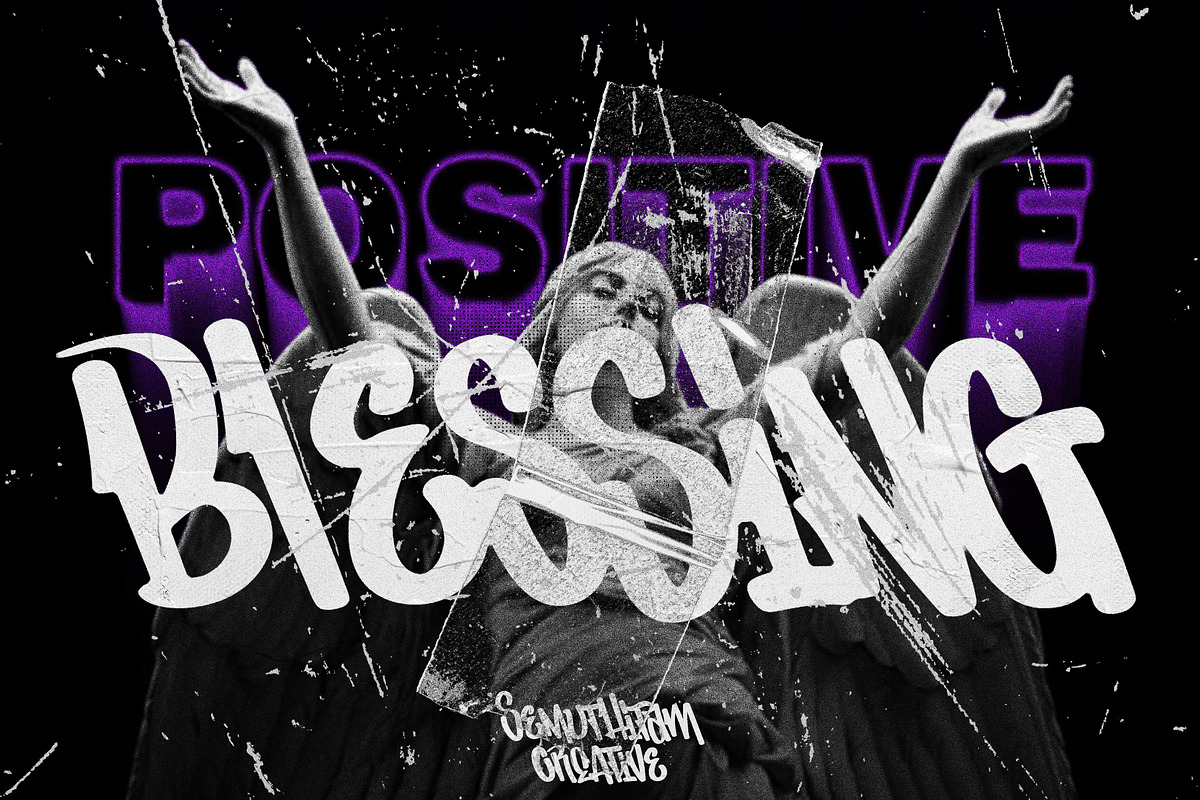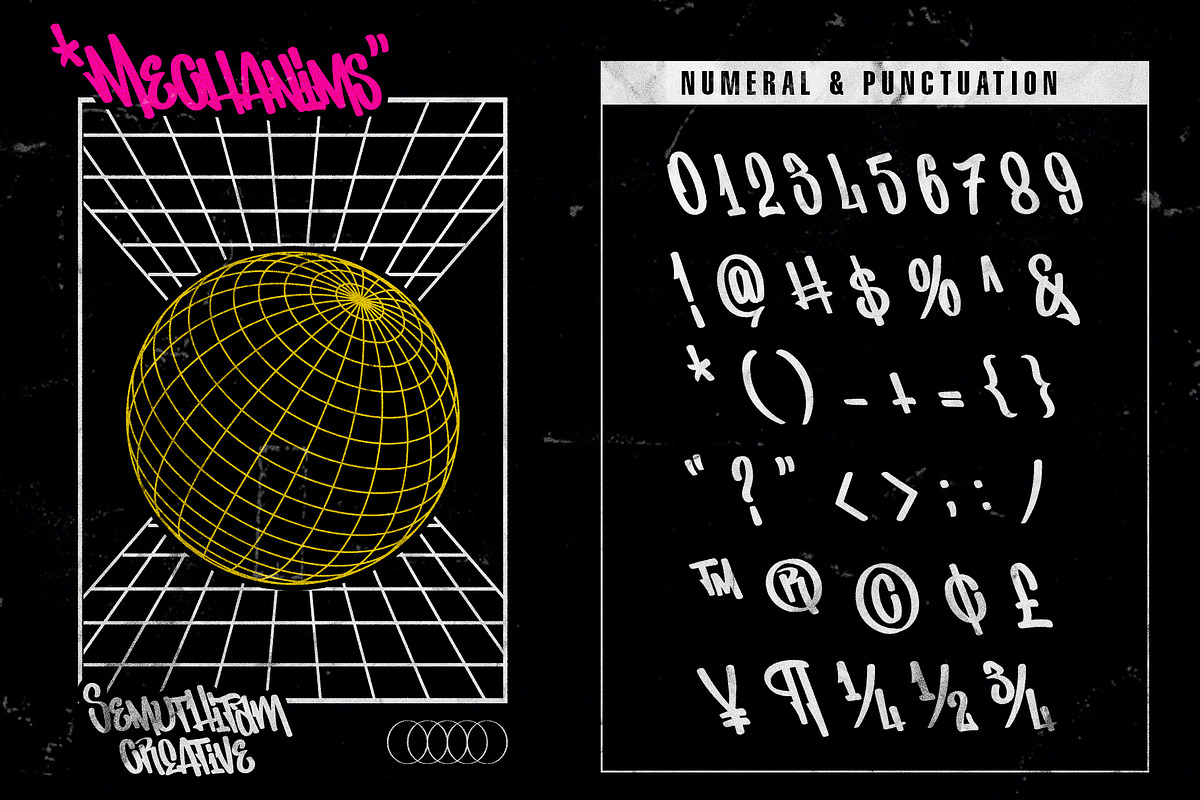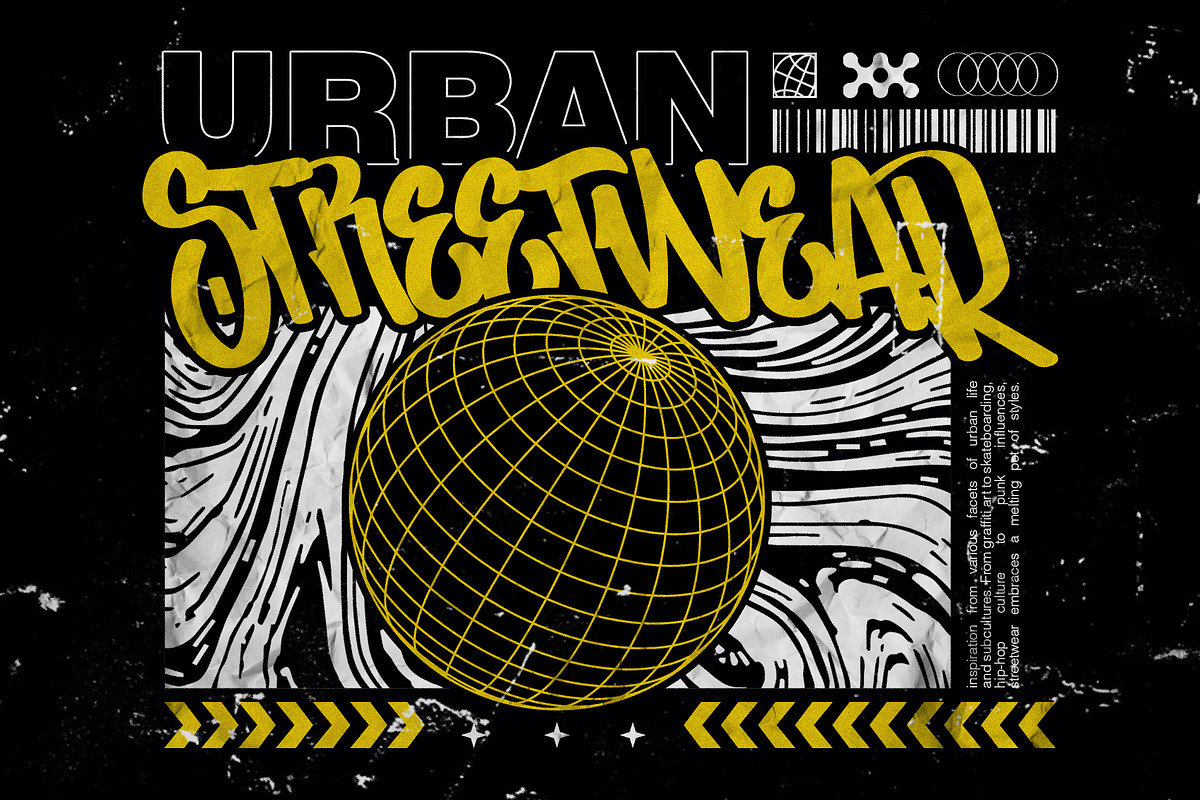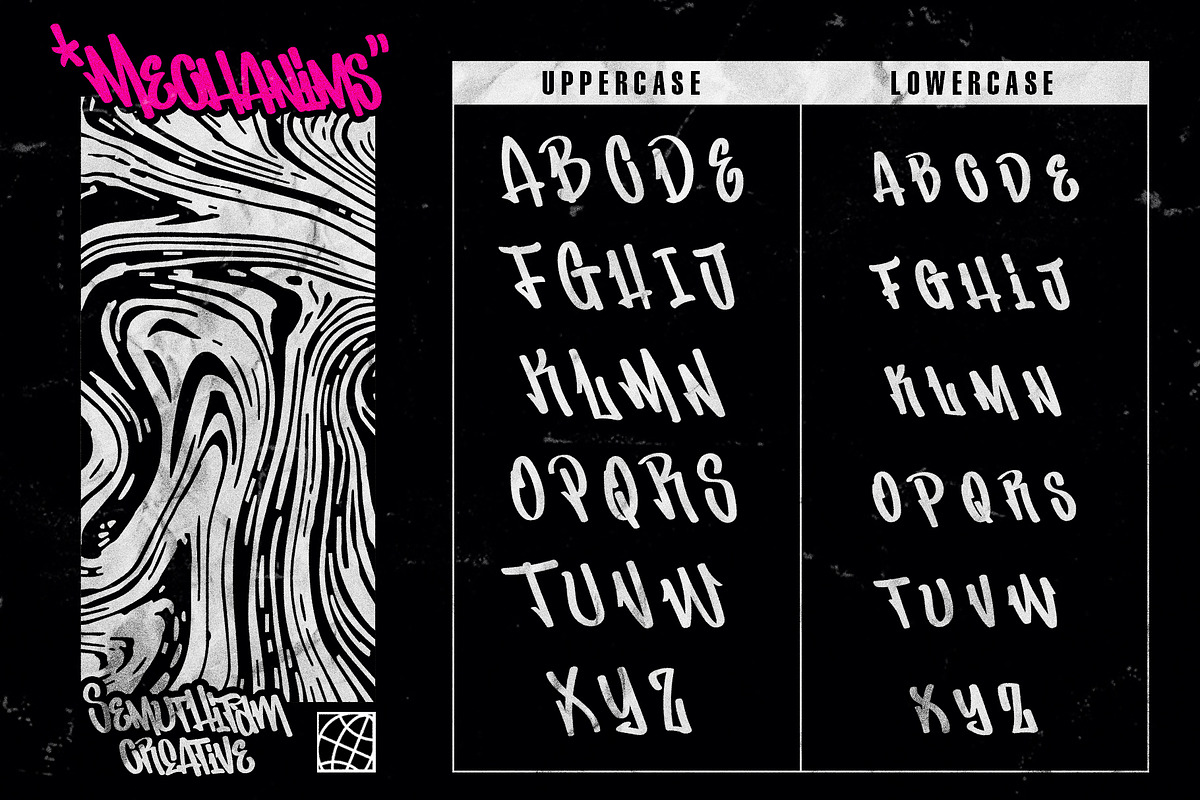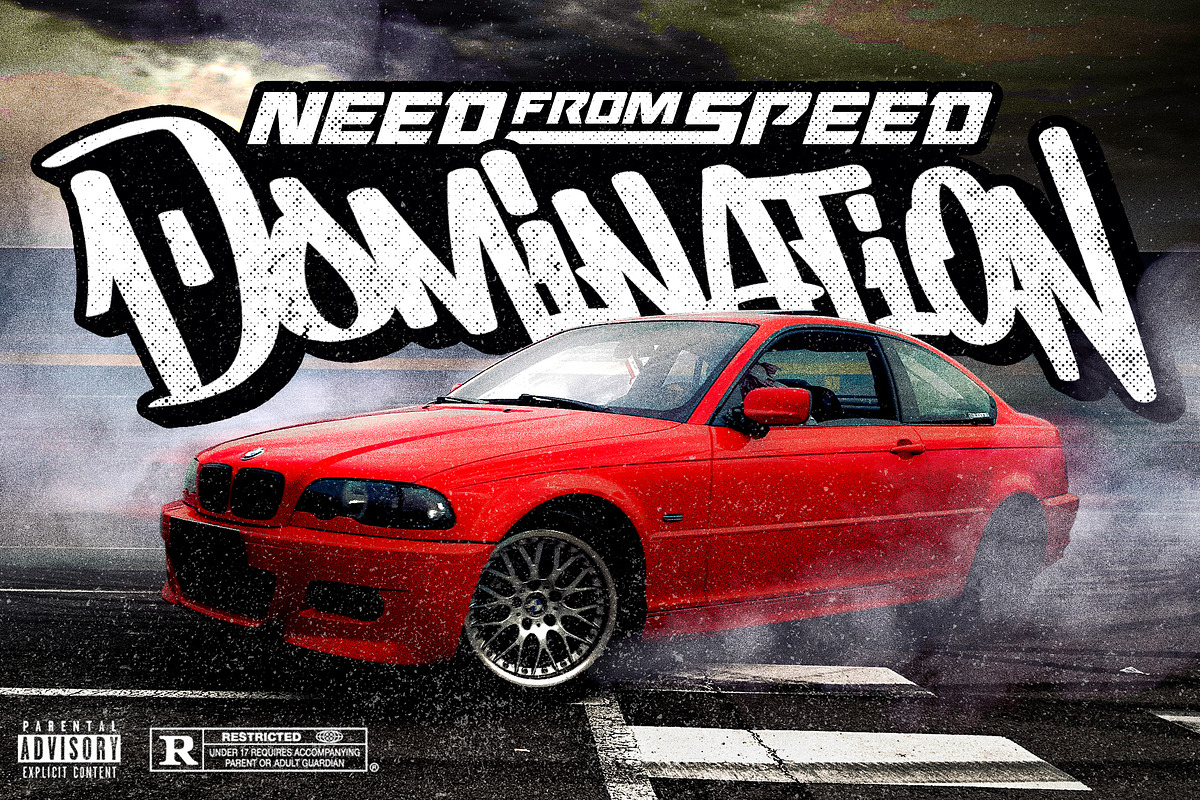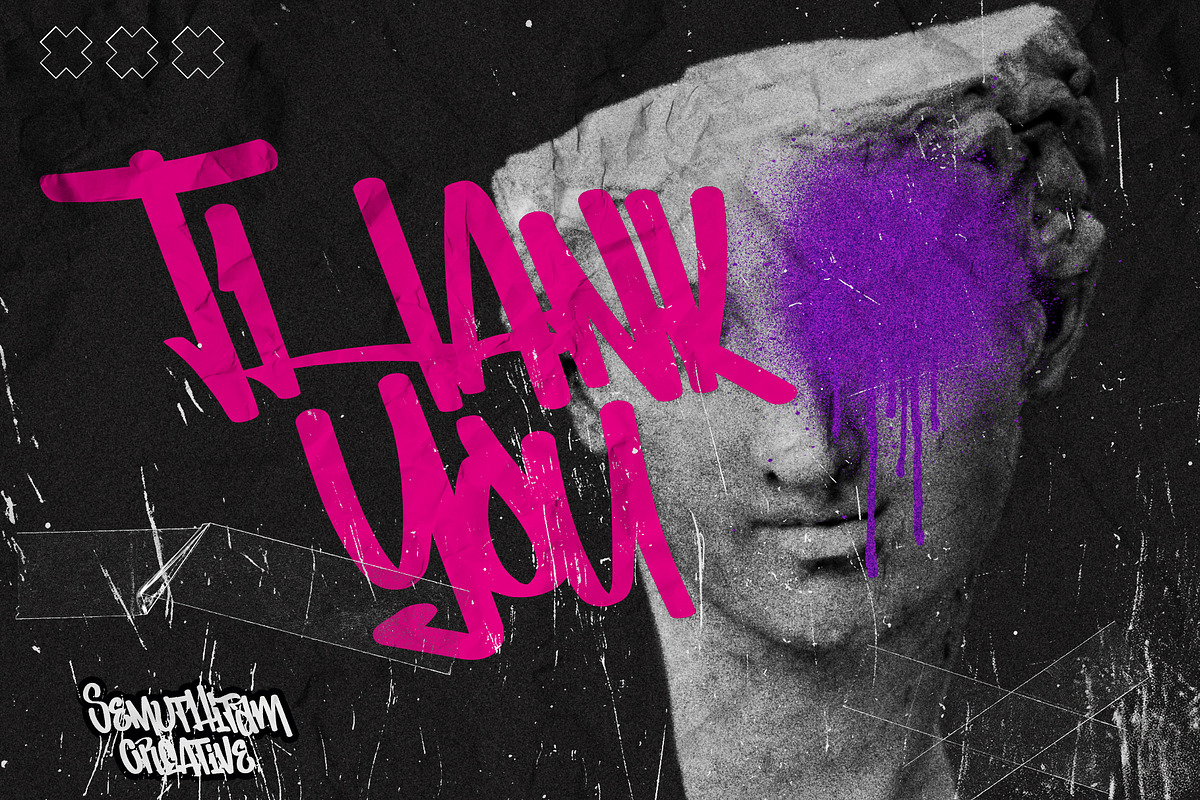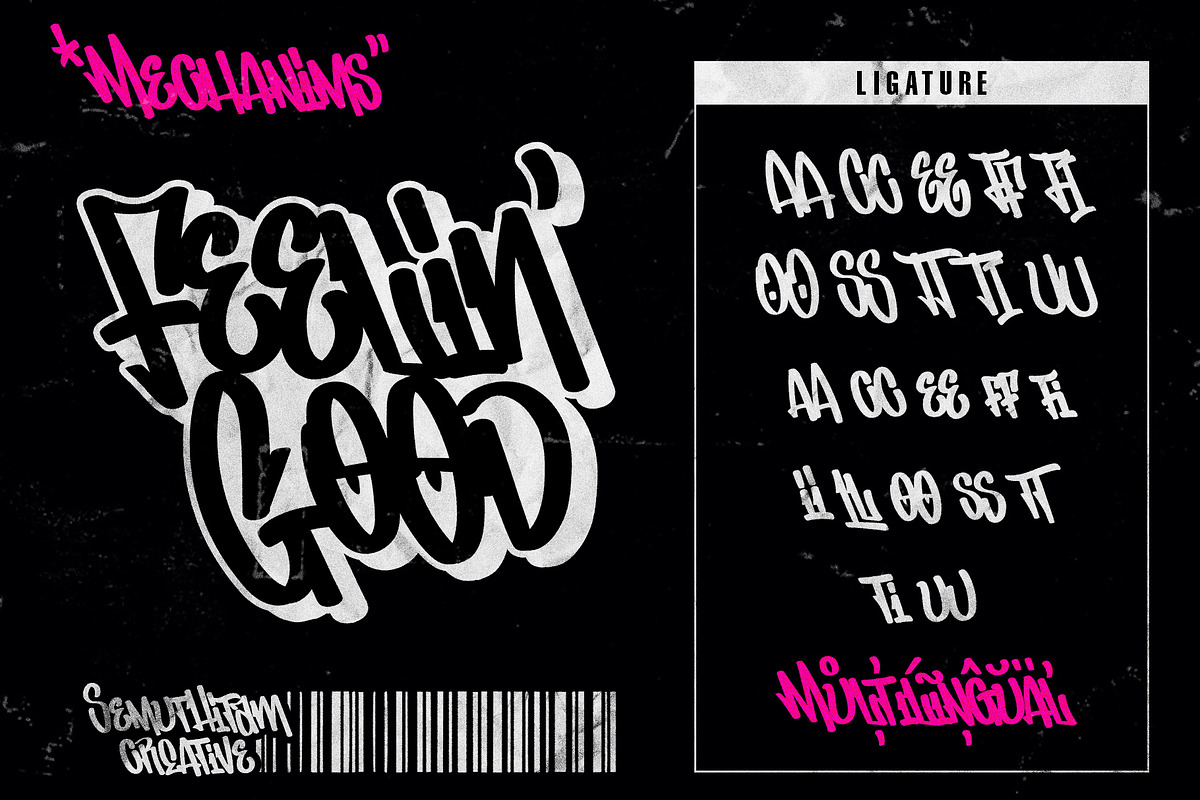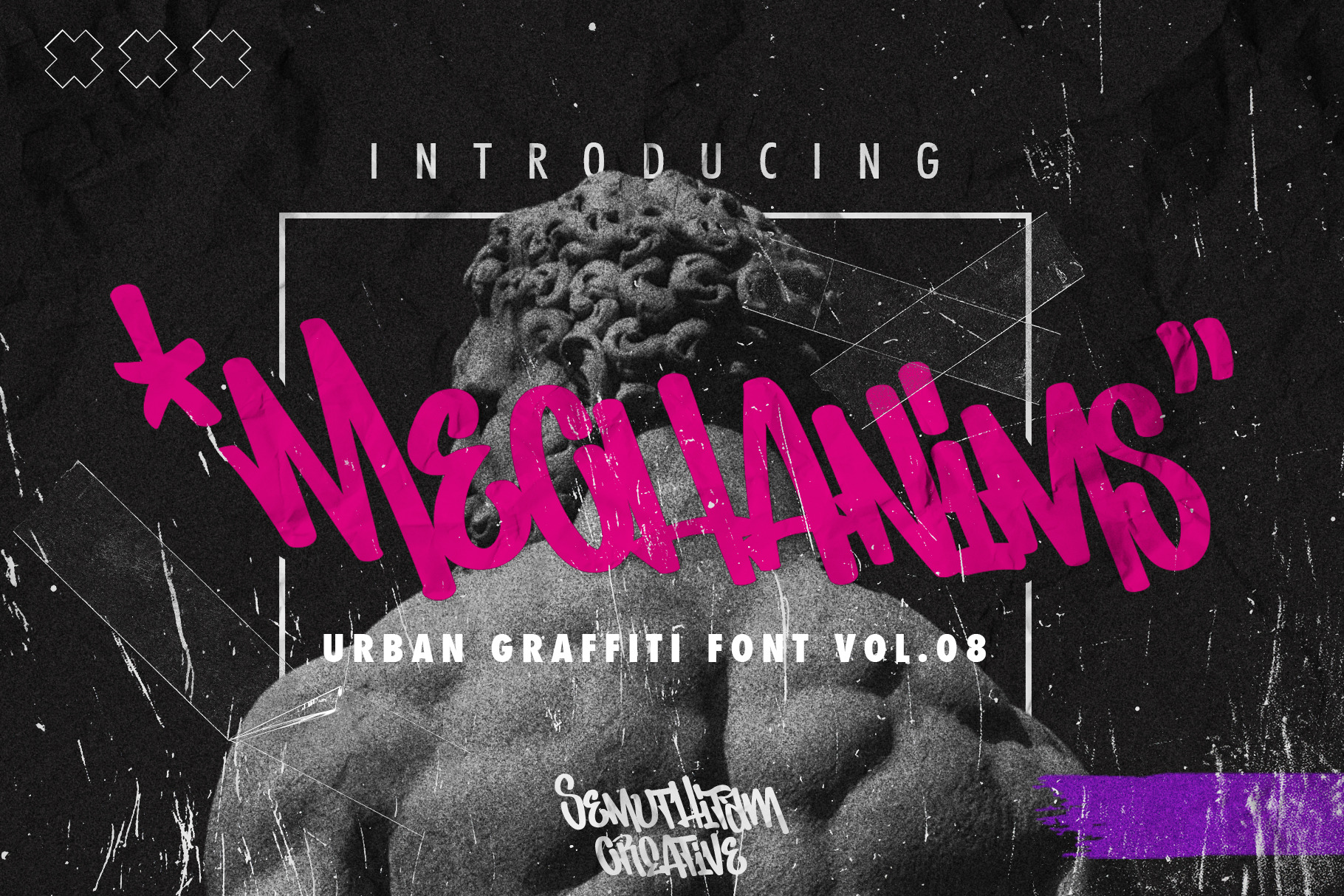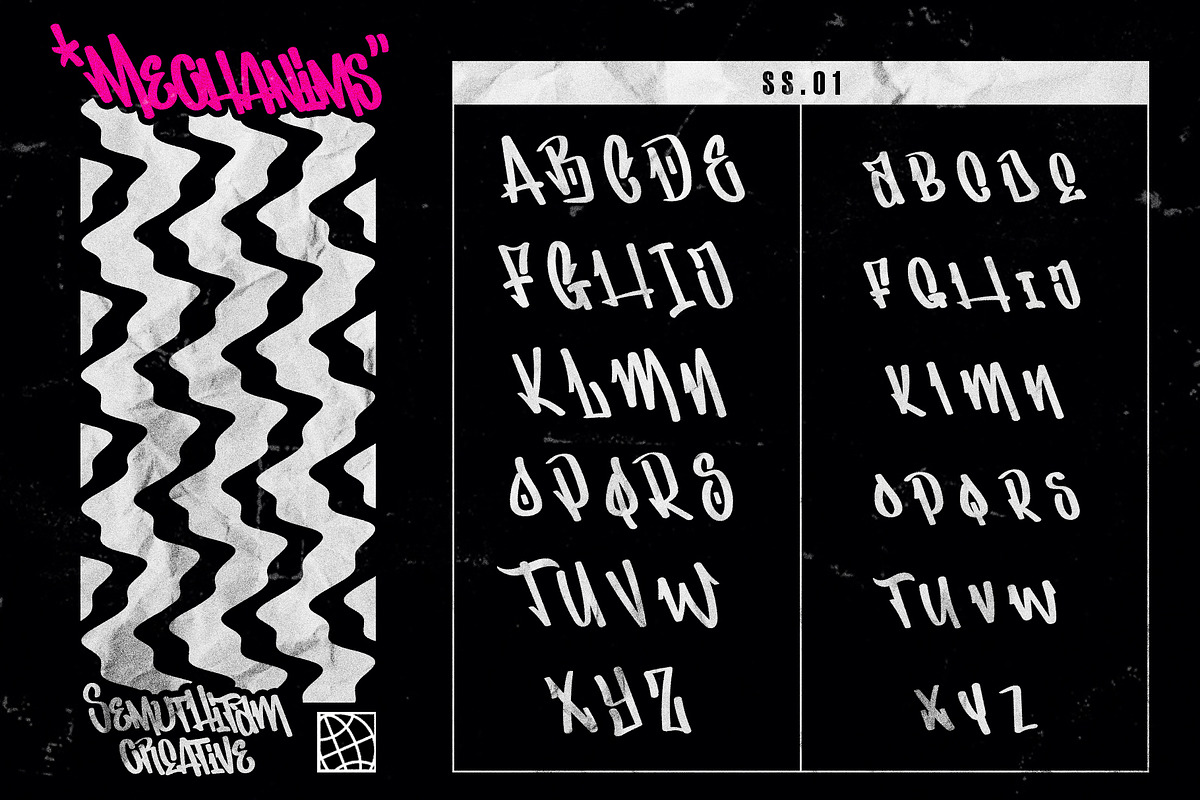
Mechanims - Urban Graffiti Font
Introducing Mechanims, an urban graffiti-inspired font designed to bring a bold edge to any digital project. Mechanims channels the vibrant, street-art energy of urban landscapes, making it ideal for brands, social media graphics, and designs that need a daring personality. Each character in this typeface packs a punch, evoking the freeform and expressive nature of graffiti while ensuring readability for digital or print use.
Perfect for anything from edgy logo designs and merch to posters and album covers, Mechanims turns simple text into striking statements. Bridging the gap between urban art and digital design. Equip your next creative work with the power of graffiti. come in .OTF .TTF .WOFF .WOFF2 to make your brand stand out with a distinctive, urban touch.